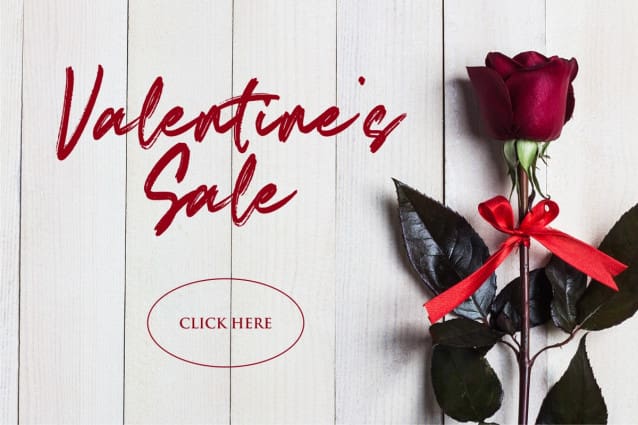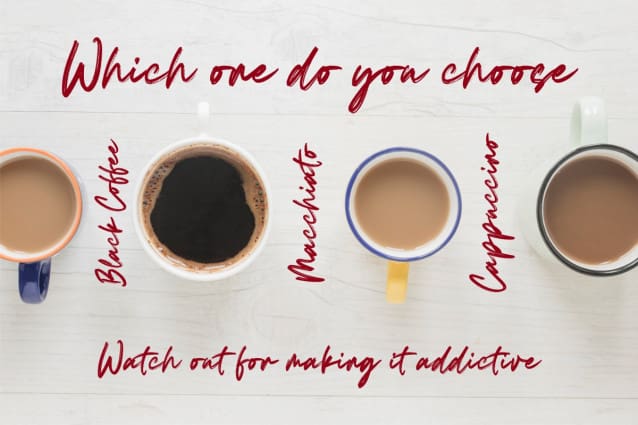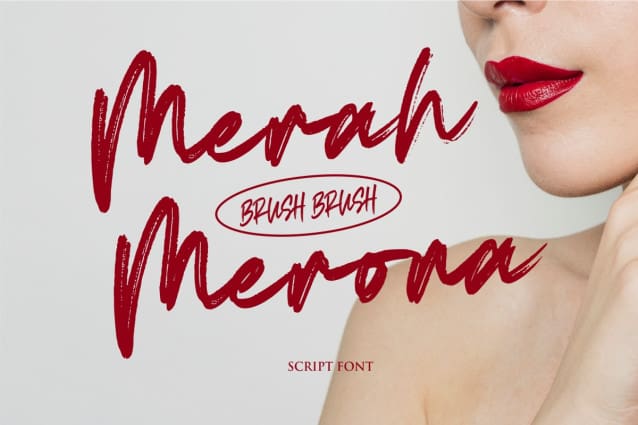
Merah Merona Font
Merah Merona Font a brush script font. It features ligatures characters that will take your projects to the next level!
Merah Merona Font is PUA code which means you can easily access all the glyphs that are full of natural! It also features many special features including glyphs. font designs that are made for various vector designs, printing such as digital wedding blogs, online shops, social media, while printing can be used in the field of product clothing, accessories, bags, pins, logos, business cards, watermarks and many others …